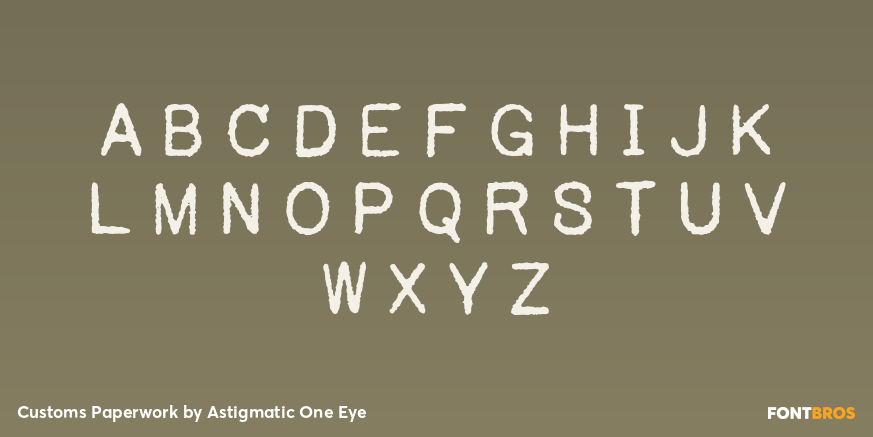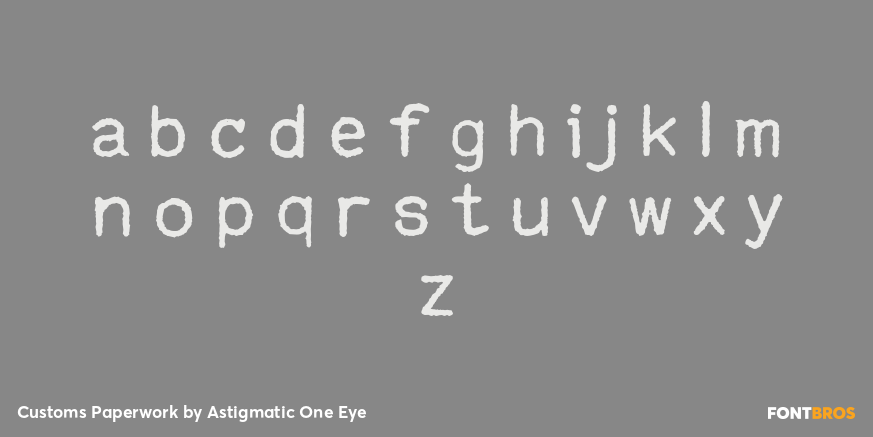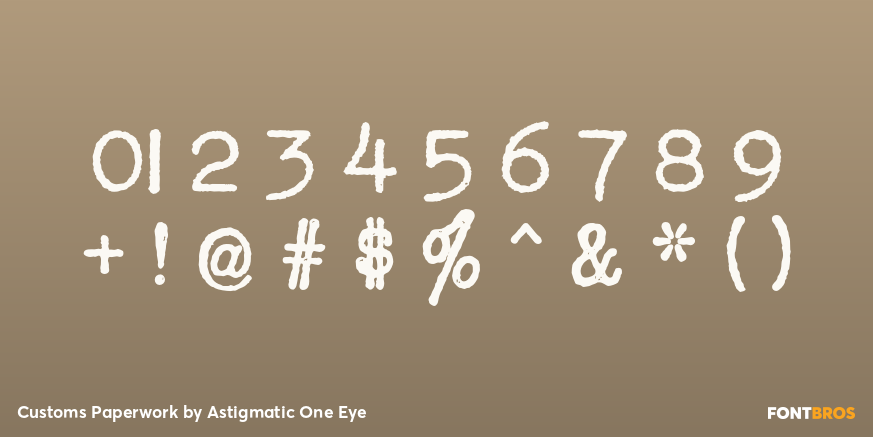
Customs Paperwork
Font Family by Astigmatic One Eye
A typeface made from vintage typewriter samples and meticulously compiled into a complete character set.